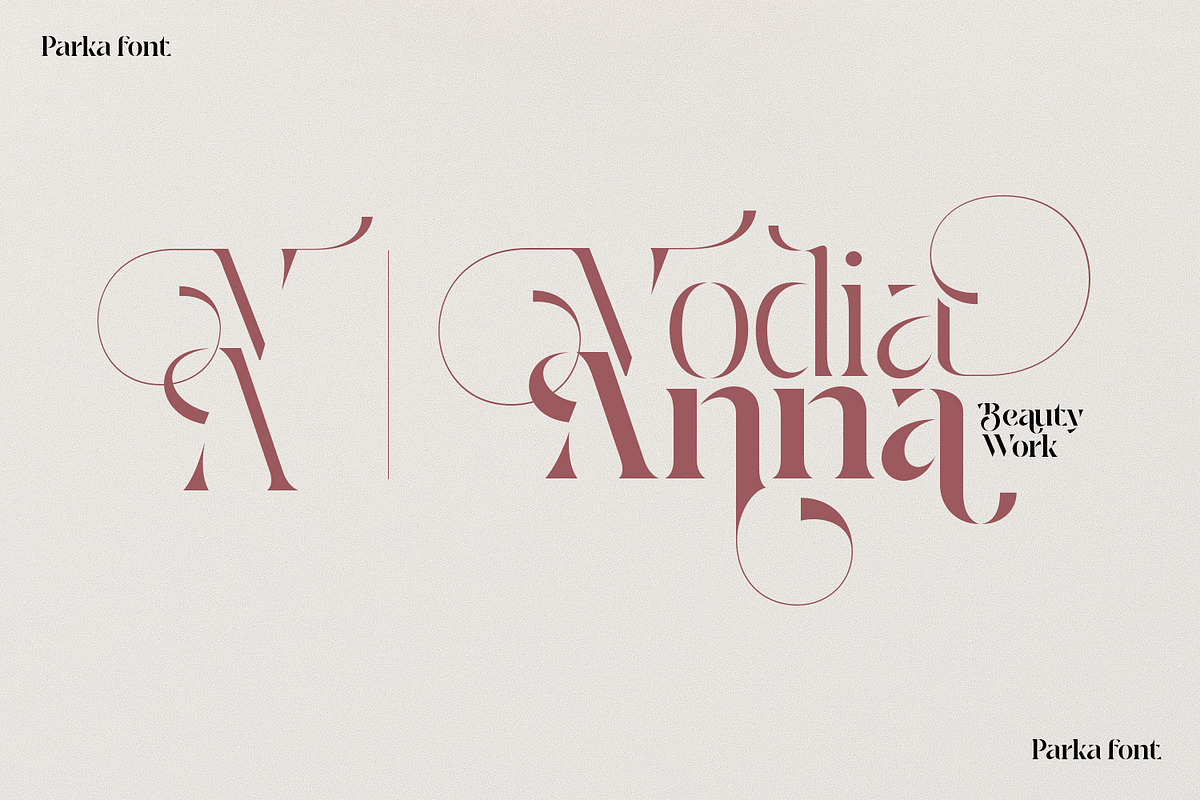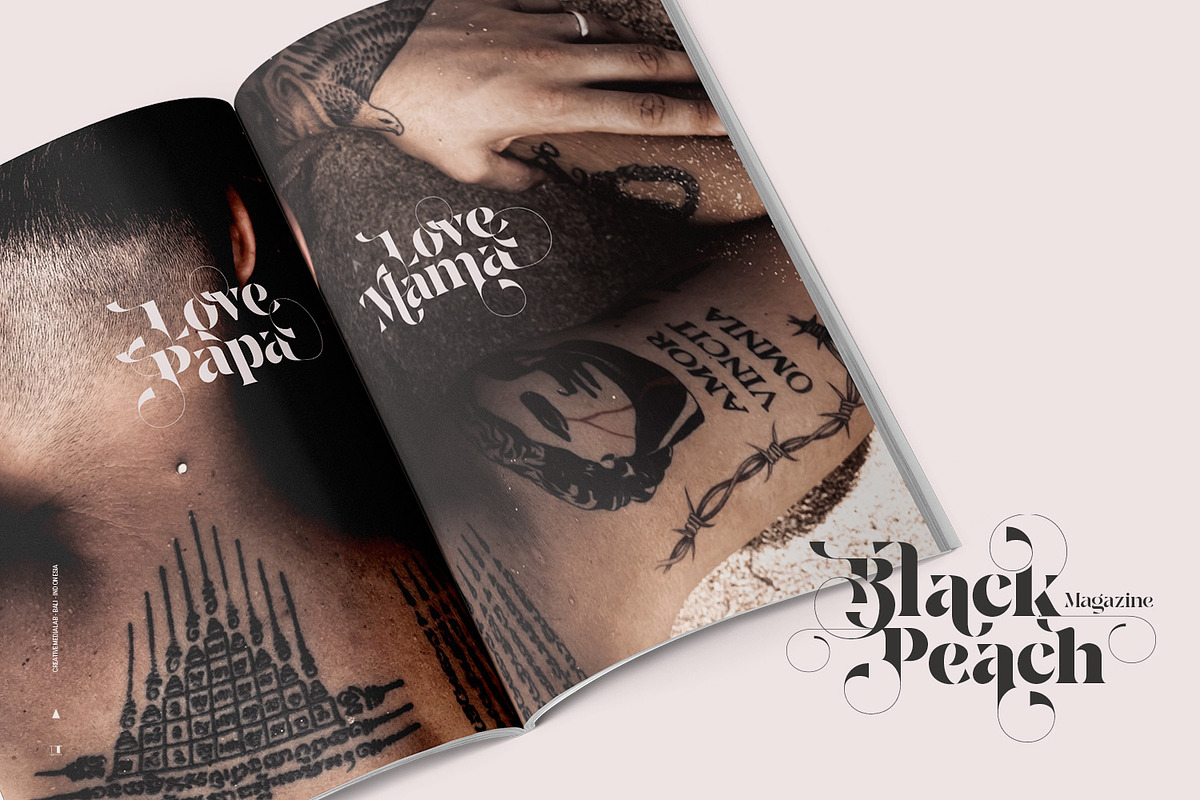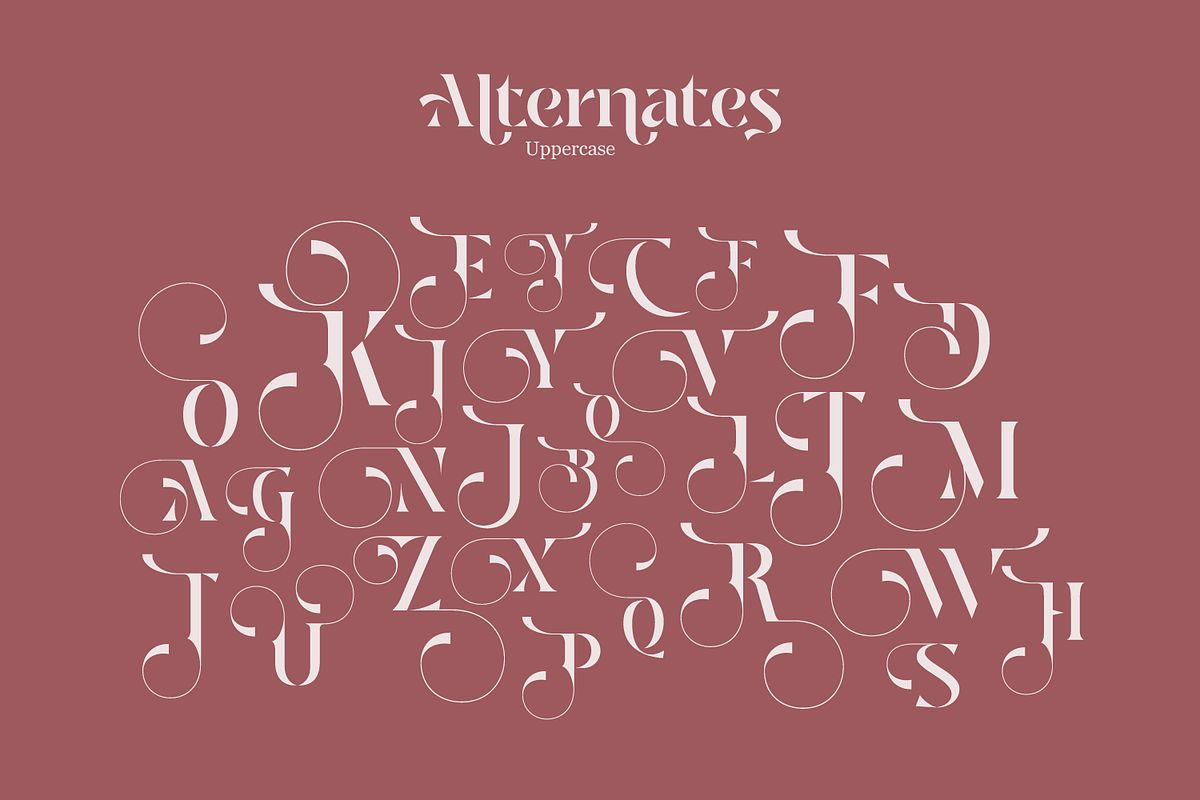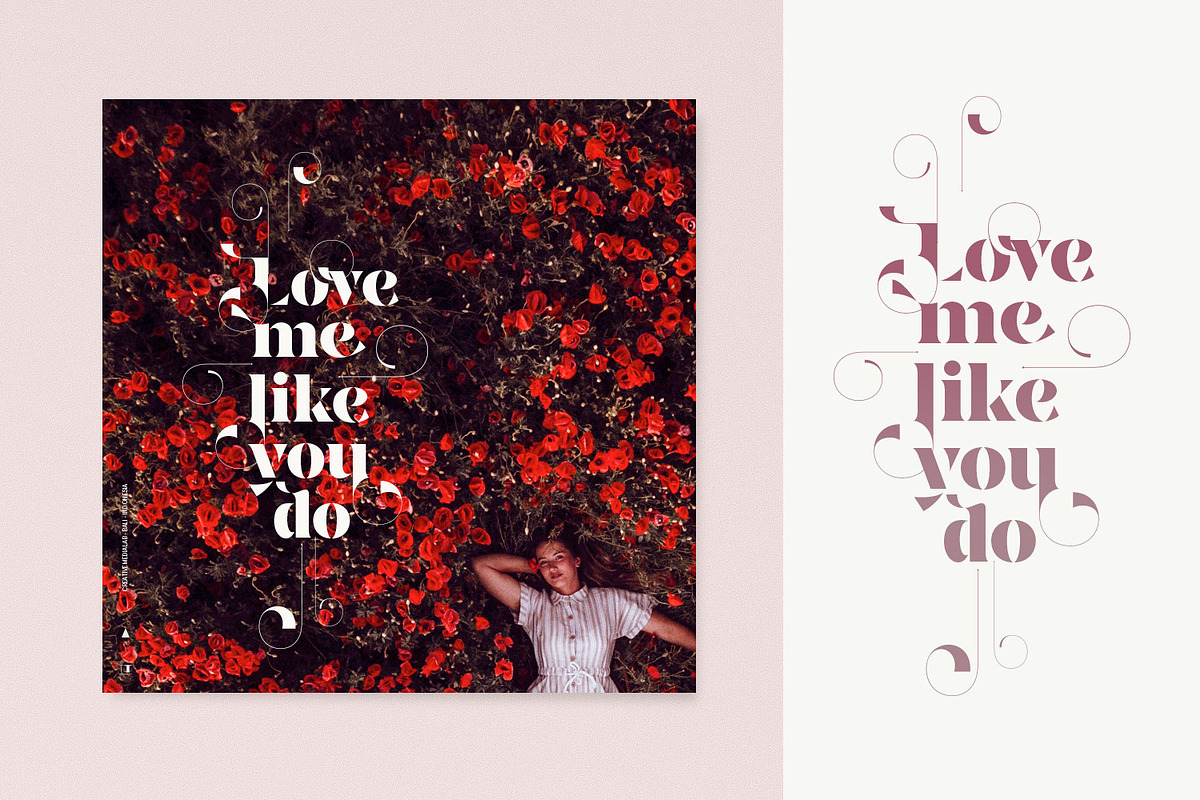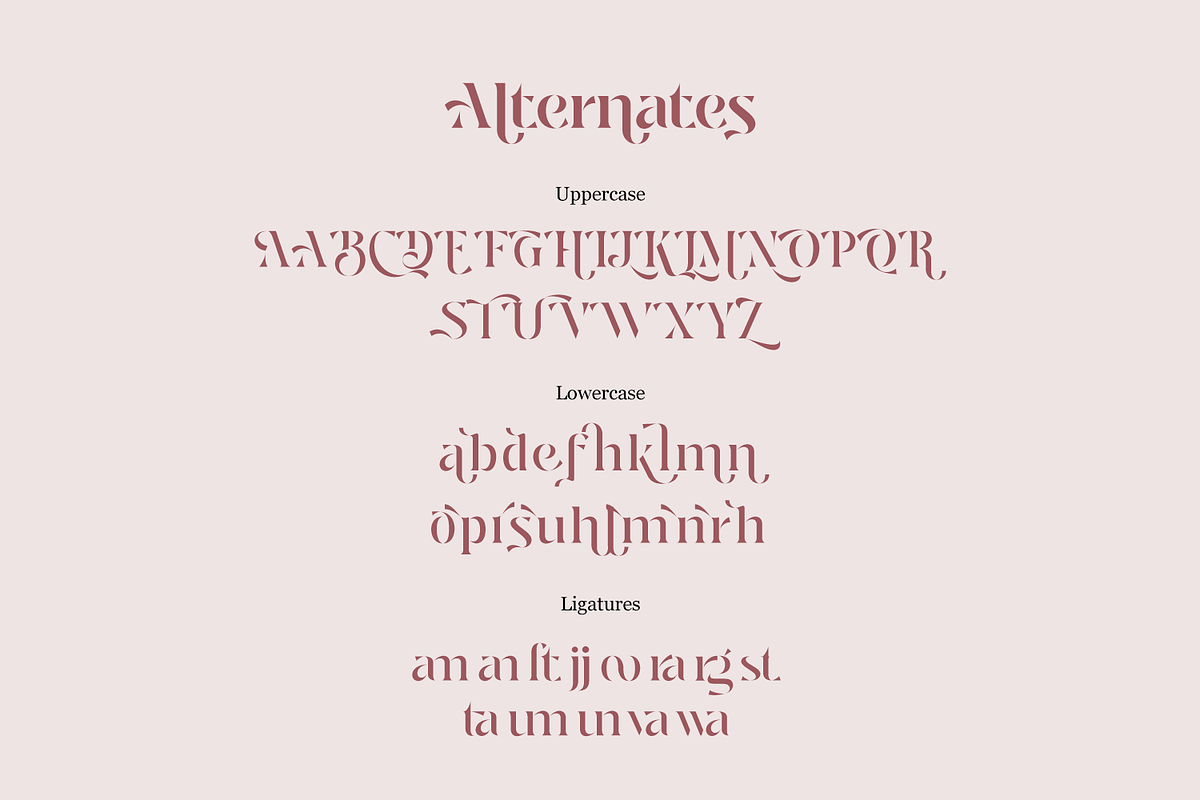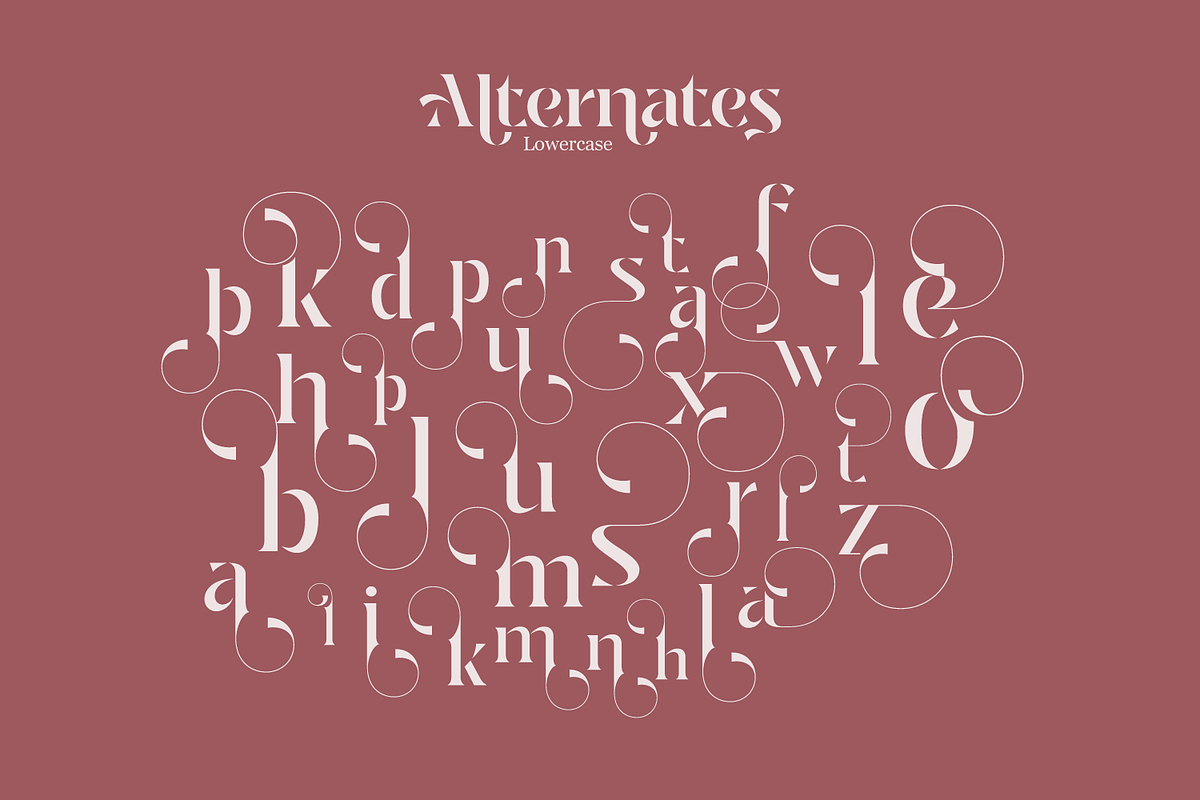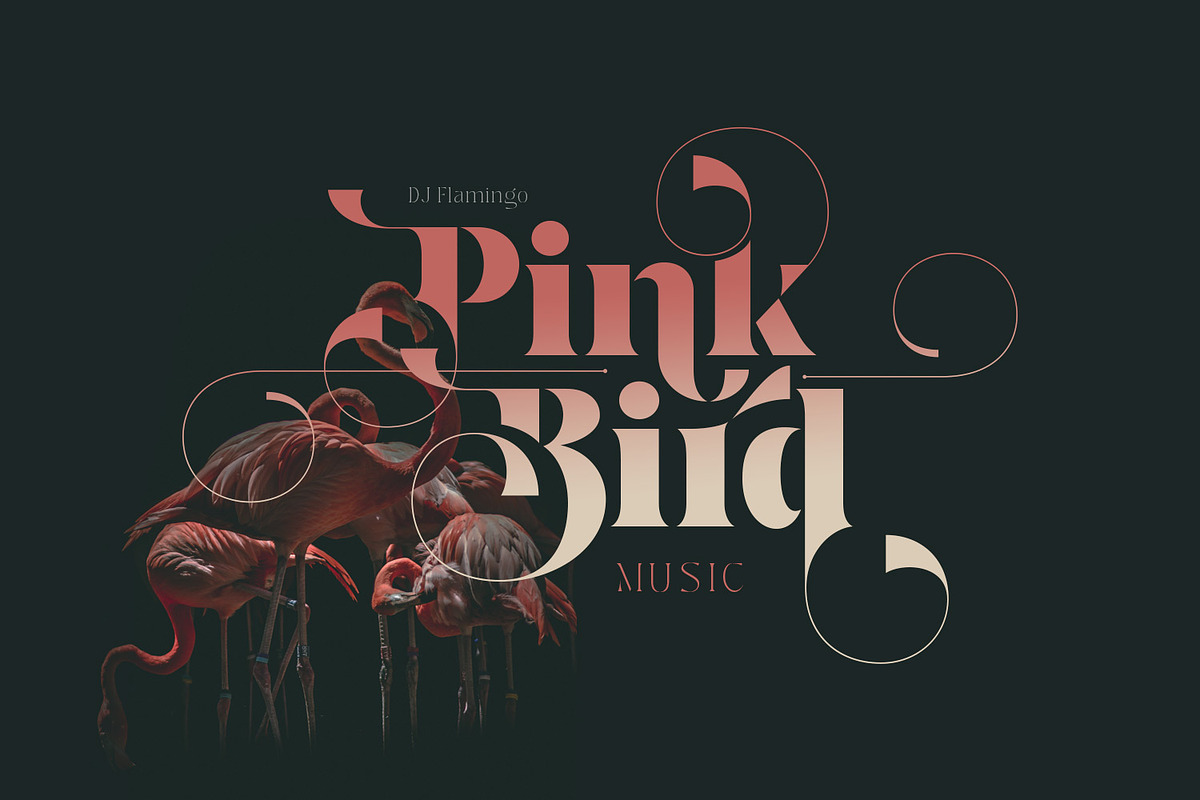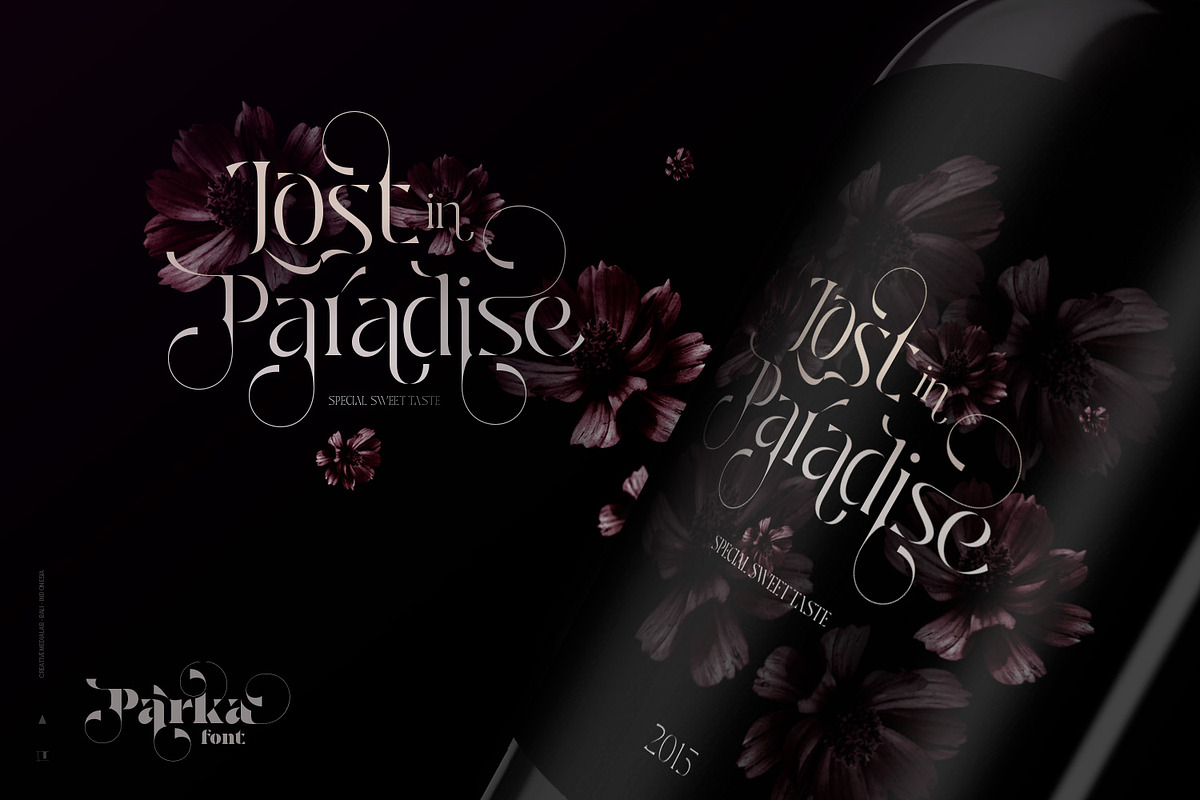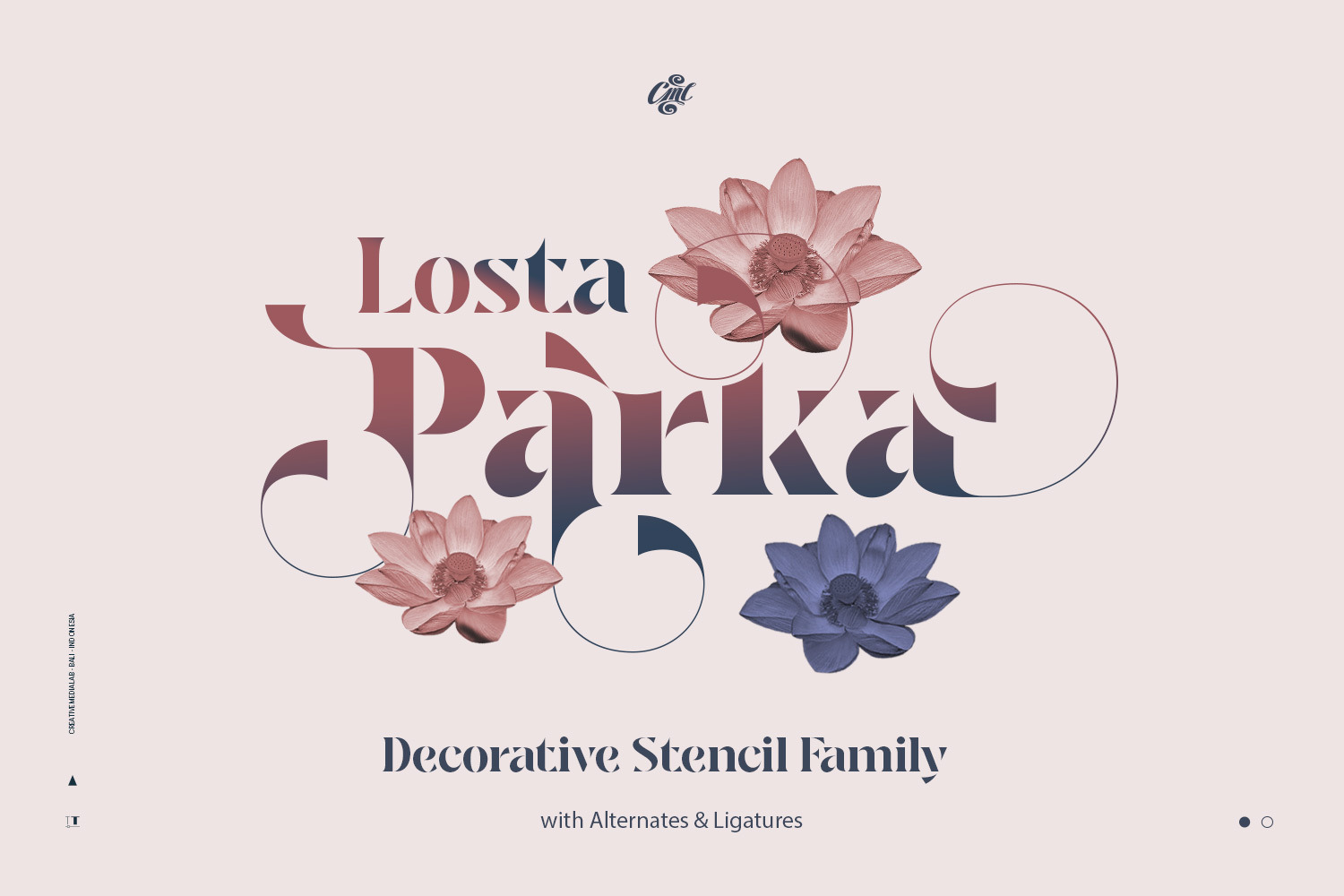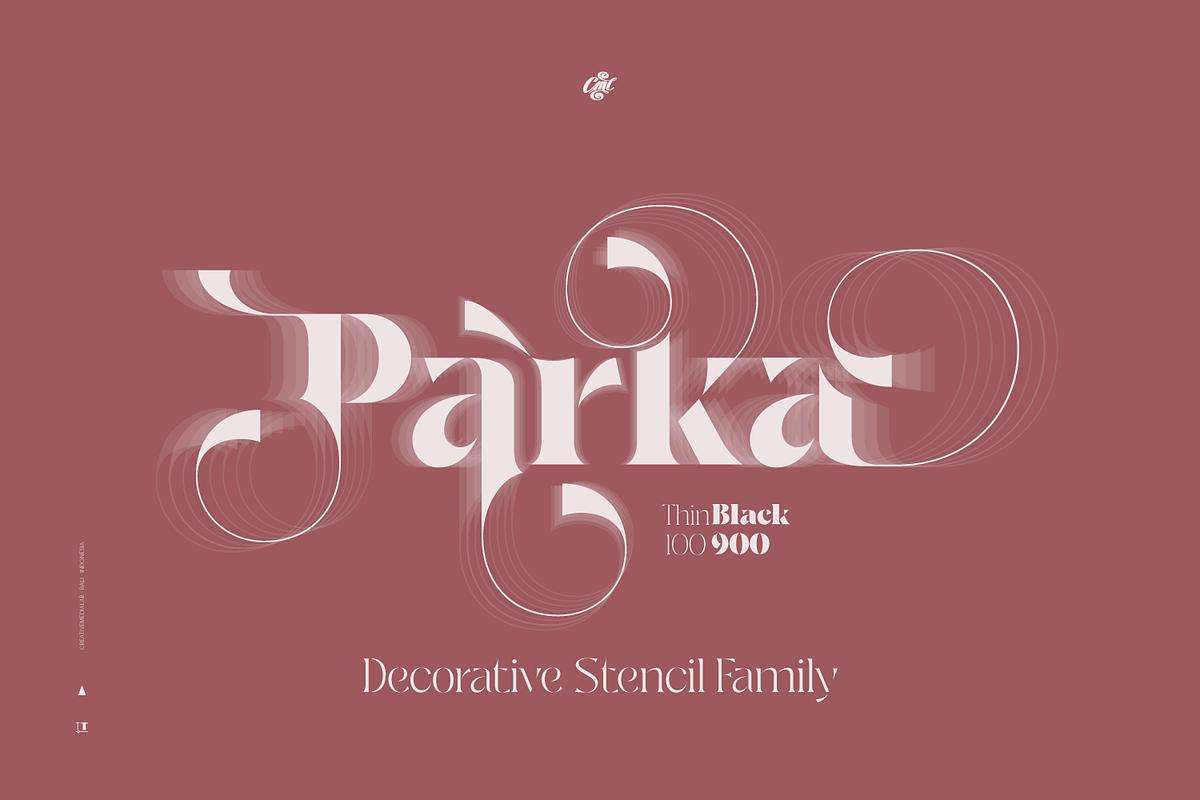
Losta Parka - DecorativeStencil Font
Introducing Parka Ornamental Stencil Family.
Unique and fashionable stencil font with tons of alternative characters and ligatures.
The strong and masculine looks are matched by softly curved alternates for the balance of form and shape.
- 9 weights from thin to black
- 120+ Alternatives characters